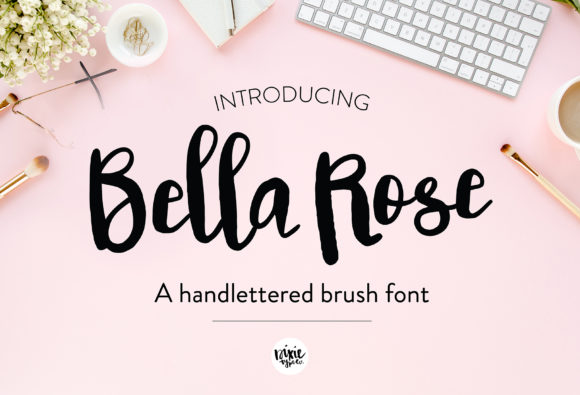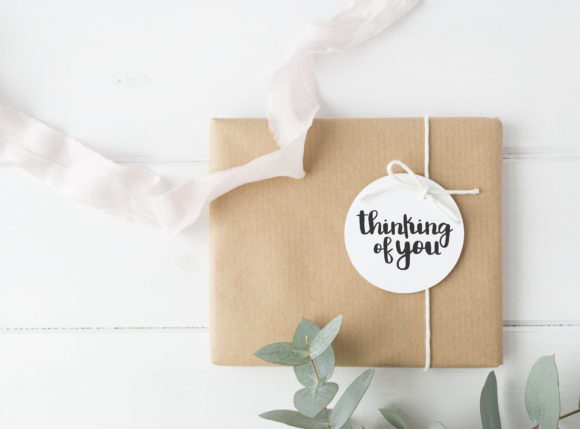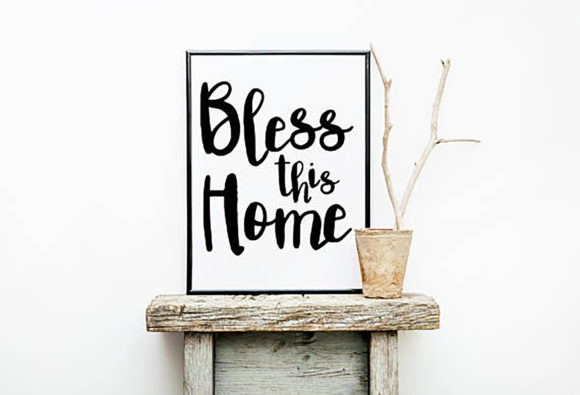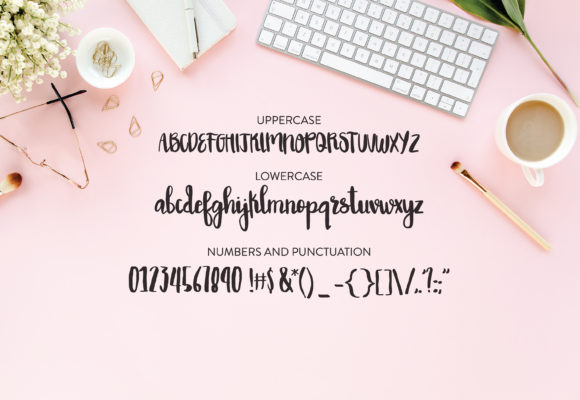
Bella Rose Font
About Bella Rose Font
Bella Rose is a sweet handwritten font designed with the help of a brush pen. A bit quirky, this font gives an incredibly friendly feel to any project you envision. Fall in love with Bella Rose and elevate your designs to unbelievable heights!